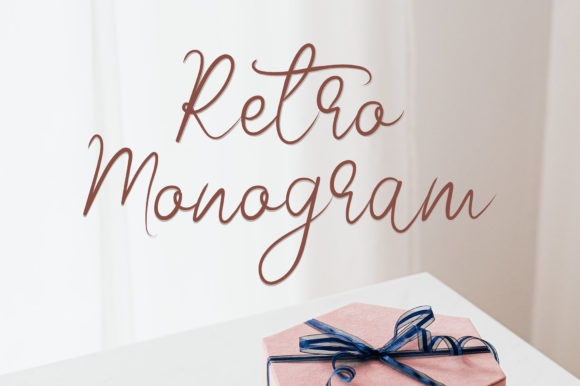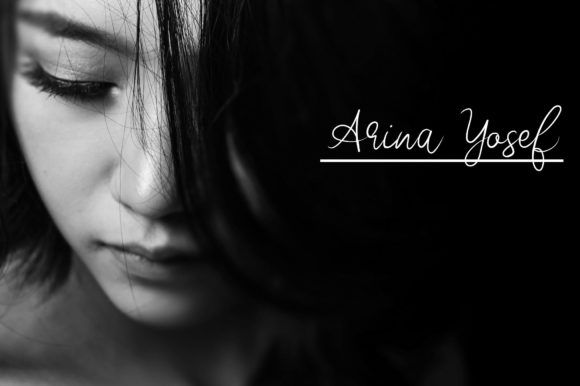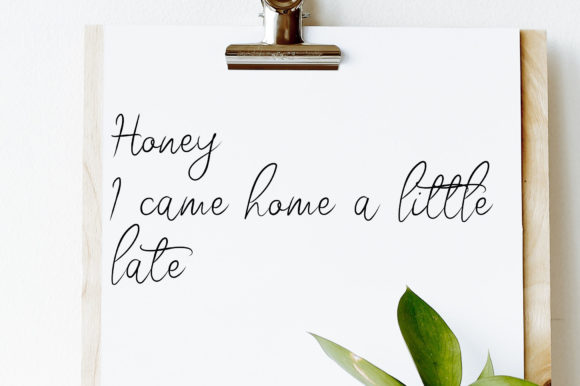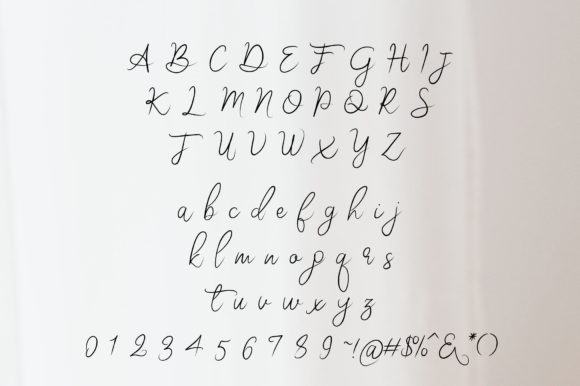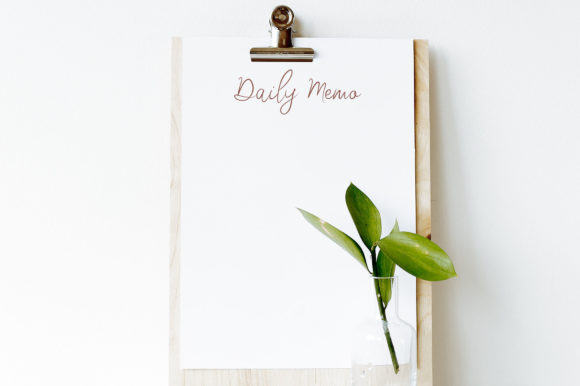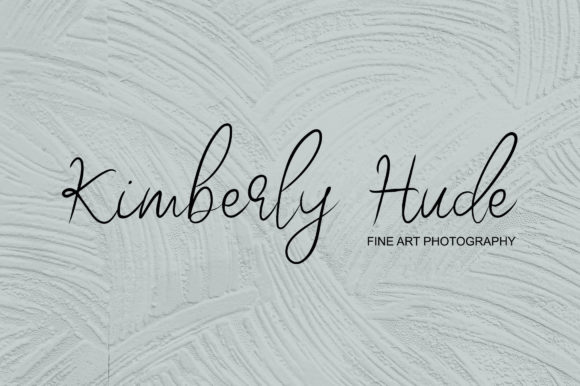
Retro Monogram Font
About Retro Monogram Font
Retro Monogram is a sweet, whimsical, flowing and thin script font. Featuring characters that dance along the baseline, this font will add a luxury spark to any design project that you wish to create!